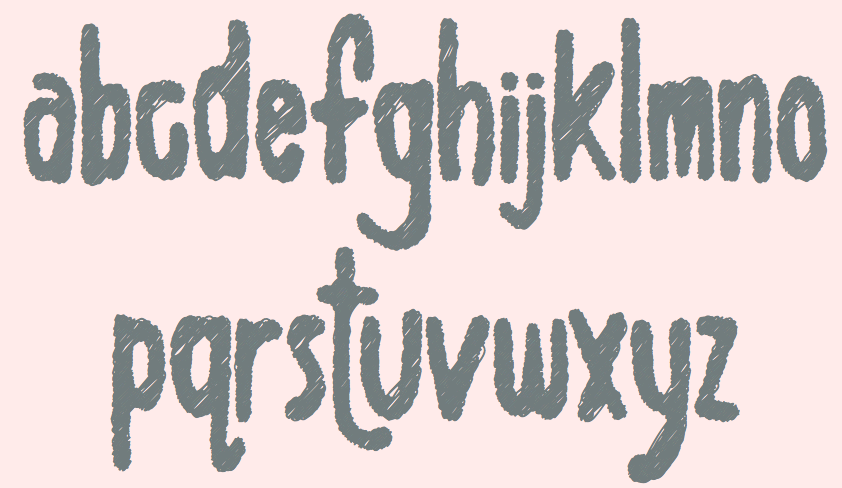
Andrew Hart
Andrew Hart is a Corona-based American digital photographer (b. 1988), who runs a small free font archive. Another archive of his. Dafont link. Another URL. Yet another URL. And still another one. And one more. His later fonts refer to SickCapital.Com. His own fonts include Gothickella (2017, blackletter), Sailorette Tattoo (2015), Elkwood (2014, sans), Snowinter (2014, sans), Rebel Pixy (2014, tattoo script), Pride of the Young (2014, hipster style), Scribblet (2014), Tall & Slim (2014, a great tall-legged poster typeface), Tribal Threat (2014), Boldenstein (2014), Fireflies (2014), Rio Frescata (2014, curly), Alpaca Scarlett (2014), Alpaca Solidify (2014), Vanity Script (2014: a vampire script), SC Gretchin and Timmy (2013), Fun In The Jungle (2013), Pixelic War (2013), A Glitch In Time (2013), Giraffe And Co (2013, an African-themed typeface), Chameleon Dreams (2013: a fantastic wacky party typeface), Angelic Serif (2012), Angelic Peace (2012), Pyrite Script (2012), Pyrite Crypt (2012), Body Piercing And Chains (2012), Love til Killed (2012), Hollywood Capital (2012), Donaldo Regrecka (2012), Deadly Black Chain (2012), Dirt2 Copperbolt (2012, grungy copperplate), Truskey (2011, grunge), Sick Capital Kingston (2011), Full Moon On (2011), Grafitik Riot (2011, graffiti face), Electric Panda (2011), Last Draft (2011, grunge typewriter), CaliforniabyDirt2 (2010), JusticebyDirt2 (2010), SC Gum Kids (2010), SC Tinas Baby Shower (2010), Little Ryan (2010, handwriting), Sick Capital Vice (2010), Star Avenue (2009), Cute Tattoo (2009), DuerTWO (2009), Dirt2Stickler (2009), Ithornët (2009, grungy blackletter), NoXWay (2009, graffiti grunge), Skulls and Splatters (2009), Hacjiuza (2009, hand-drawn blackletter; +Dirty), Popstar Autograph (2009, comic book style script), The Quickest Shift (2009, curly script), DuerTwoo (2009, bloody horror font), Malgecito (2009, grunge), Ithornët (2009, grungy medieval pirate font), Little Bliss (2009), Loyal Fame (2009, curly script), Angelic War (2009, grunge), Soulstalker (2009, grungy blackletter), Kings of Pacifica (2009, ransom note font), GanixApec (2009), GoodPeace (2009), KatyBerry (2009), OffTheDrugs (2009), ThinFranq (2009), WILDAFRICA (2009, African-theme multiline face), St. Andrew (2009, a spray type font), Hawaii Lover (2009, grunge calligraphic script), Aristotle Punk (2009, grunge), Juicy Hunt (2009, grunge), Dead Hardy (2009, Victorian), Kate Perry (2009, fifties script), Kate Berry (2009, fifties script), Vloderstone (2009, hairline slab serif), Good Peace, Off The Drugs, Thin Franq (2009, hairline), Ganix Apec (2009, sans), Jailbox1 (2009, grunge), Blast Beat (2008), Ghosttown-BC (2008, Western style), Dead Secretary (2008, grunge), DIRT2-DEATH (2008, grunge), Robot Head (2008), Alpaca 54 (2007, grunge), Hawaii Killer (2007, Coca Cola grunge), Splinter2 (2007, grunge based on Franklin Gothic), Everyday Ghost (2007, grunge), Plague Death (2006, grunge), SEXtalk69 (2007), Screamz1 (2007). |